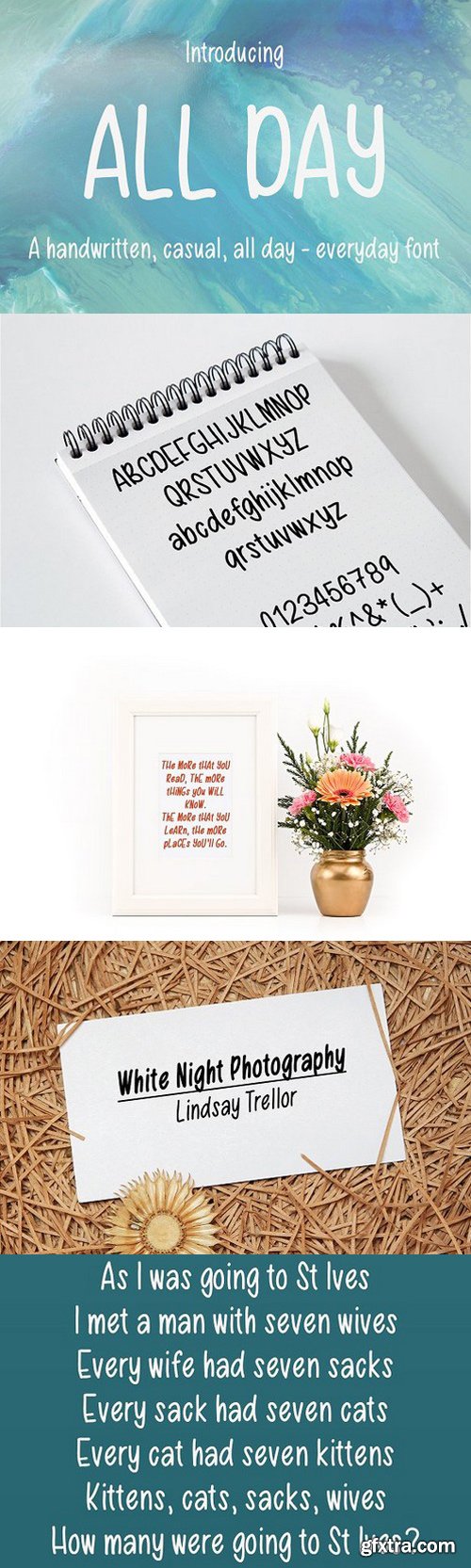
All Day Font
All Day is a handwritten, casual, clear, all day, everyday font. I'm literally using this every day for all of my admin documents!
Great for your next project whether it be invitations, stationary, branding, marketing, apparel, custom quotes and the like!